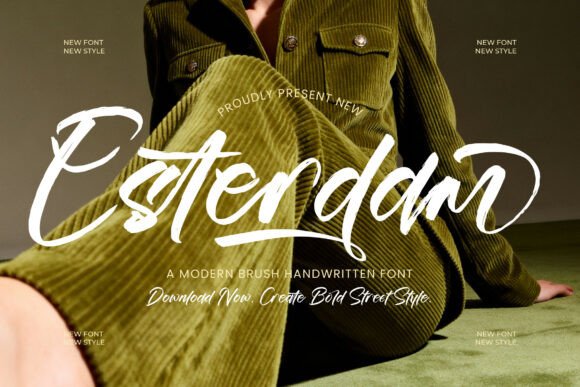
Introducing Esterdam: The Ultimate Modern Brush Handwritten Font
Are you looking for a font that can elevate your design projects to the next level? Look no further than Esterdam, an elegant modern brush handwritten font created by Operatype. With its sophisticated finish, Esterdam can breathe life into any project, making it ideal for a wide range of uses. In this article, we’ll explore the features and benefits of Esterdam and why it’s a must-have for designers and crafters.
Modern Elegance for a Variety of Projects
Esterdam’s modern elegance makes it a perfect match for logos, branding projects, and homewares items. Its sophisticated finish infuses a touch of premium taste into your product packaging, mugs, posters, shopping bags, t-shirts, and book covers. Whether you’re designing for digital or print, Esterdam adds a touch of class to your business cards, invitation and greeting cards, labels, photography, watermarks, or any special events you want to elevate.
Key Features of Esterdam
Esterdam comes with a wide array of features that make it a versatile and user-friendly font. Here are some of its key features:
- Ligatures, alternates, and swashes: Esterdam includes ligatures, alternates, and swashes, giving you a range of creative options.
Why Choose Esterdam?
So why choose Esterdam over other fonts? Here are just a few reasons:
- Unique and elegant design: Esterdam’s modern brush handwritten design sets it apart from other fonts, giving your projects a unique and sophisticated look.
- Versatility: Esterdam’s range of features and compatibility with multiple design software make it a versatile font that can be used for a wide range of projects.
- Premium feel: Esterdam’s sophisticated finish gives your projects a premium feel that’s sure to impress.
Esterdam is perfect for designers and crafters who want to add a touch of elegance and sophistication to their projects. Whether you’re designing for digital or print, Esterdam’s modern brush handwritten design is sure to impress. Here are just a few ways you can use Esterdam:
- Branding and logos: Use Esterdam to create a unique and sophisticated brand identity.
- Product packaging: Add a touch of premium taste to your product packaging with Esterdam.
- Stationery and cards: Use Esterdam to create elegant and sophisticated stationery and cards.
- Web design: Use Esterdam as a web font to add a touch of elegance to your website.
In conclusion, Esterdam is a must-have font for designers and crafters who want to add a touch of elegance and sophistication to their projects. With its modern brush handwritten design, range of features, and compatibility with multiple design software, Esterdam is the perfect choice for a wide range of projects. Whether you’re designing for digital or print, Esterdam is sure to impress.